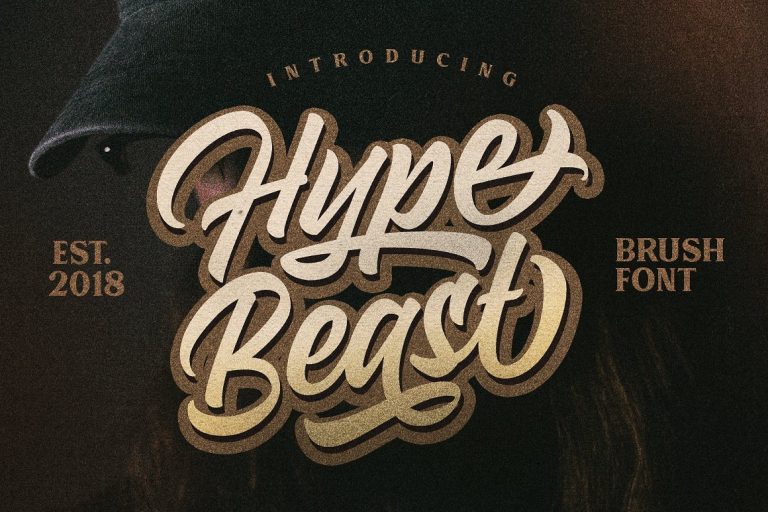
Hypebeast Script Font
Introducing Hypebeast Font. It is was designed by Dirtyline Studio. Hypebeast Inspired by contemporary fashion and streetwear and combination with Hand Lettering style. Ideal for logos, handwritten quotes, product packaging, header, poster, merchandise, social media & greeting cards.